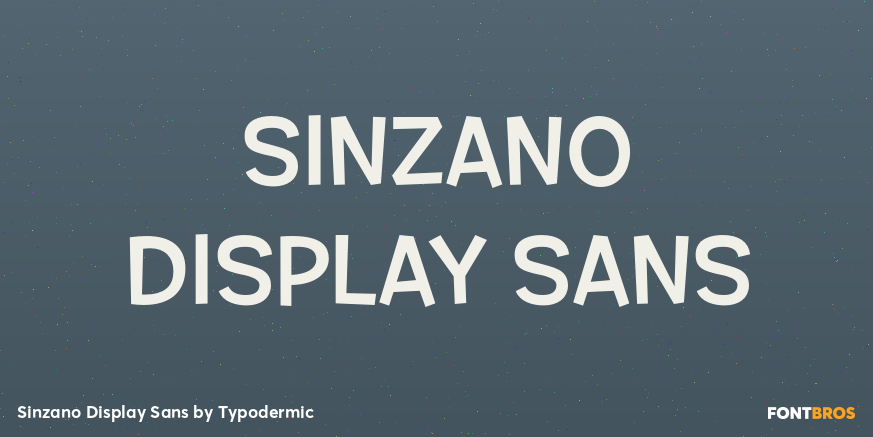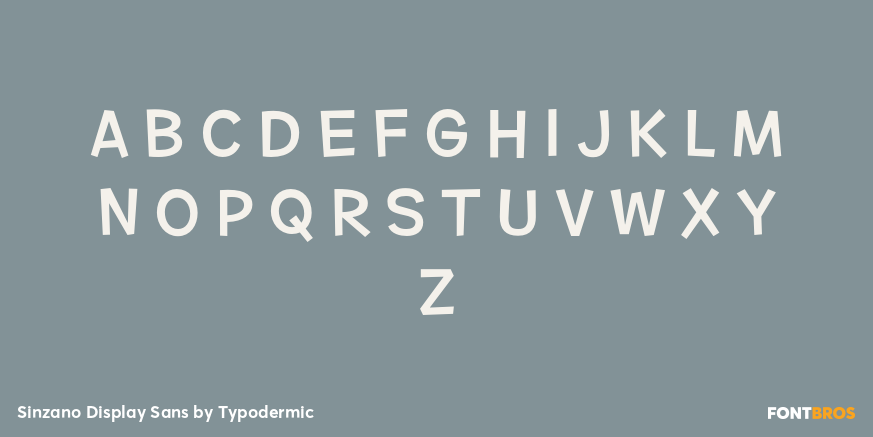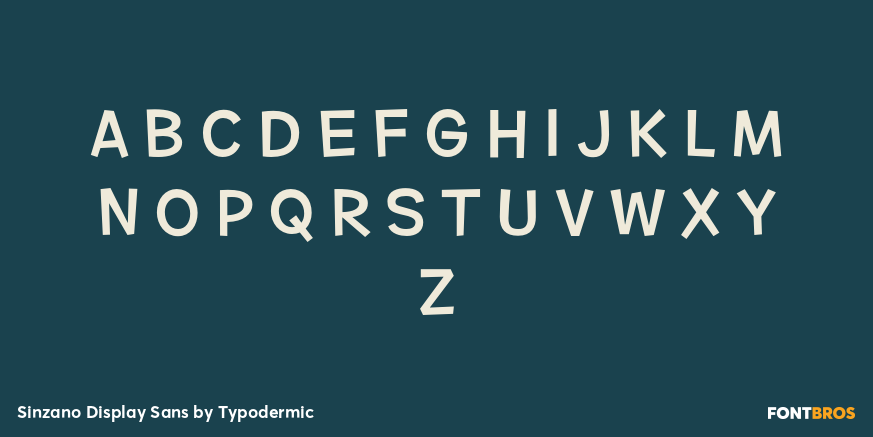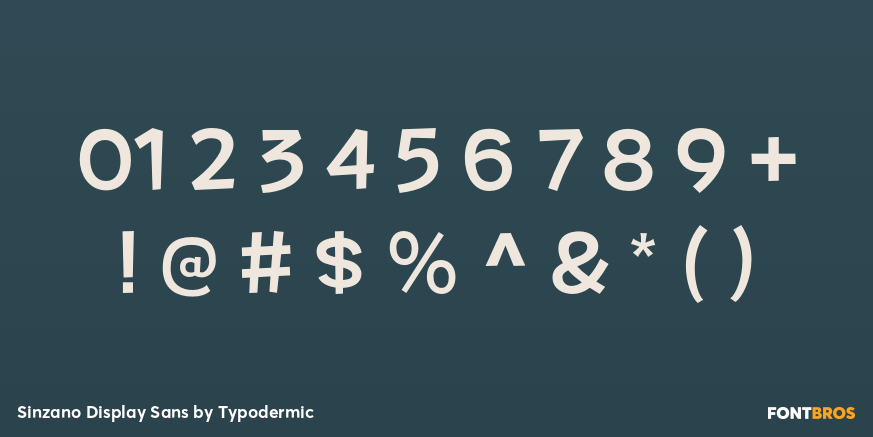
Sinzano Display Sans
Buy NowSinzano Display Sans expands the family's composed-name idea into a broader geometric sans serif. Its wider proportions give short words more horizontal presence than Sinzano Regular or Sinzano Sans, while the distinctive letter construction keeps titles from feeling like neutral typesetting. The result is a separate display voice rather than another weight of the narrow original.
Use Sinzano Display Sans for venue names, festival titles, bottle labels, fashion campaigns, exhibition graphics, and hospitality identities that need a bold, fitted word shape with room to breathe. It is especially effective for short names and hero lines; the narrower Sinzano styles can provide a sharper companion when a system also needs compact sub-brands or secondary display copy.